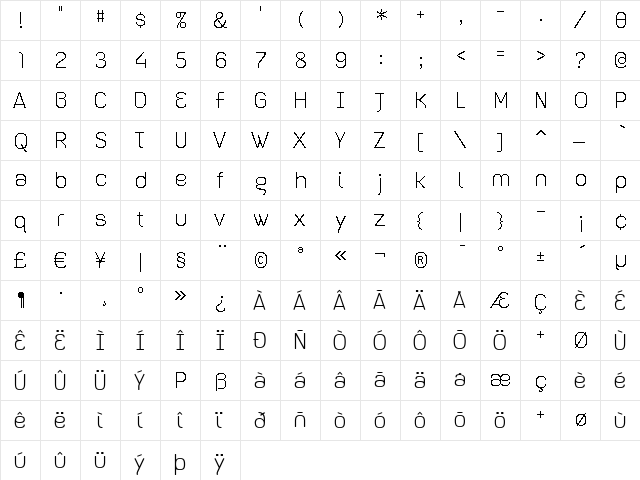
Dispose Light
| Foundry | Lee Fasciani |
| Designer | Lee Fasciani |
Design Context for Dispose Typeface
Dispose offers clean, dependable letterforms without strong stylistic allegiance, making it a practical choice for designers who need flexibility. The delicate stroke weight brings airiness and refinement to layouts.